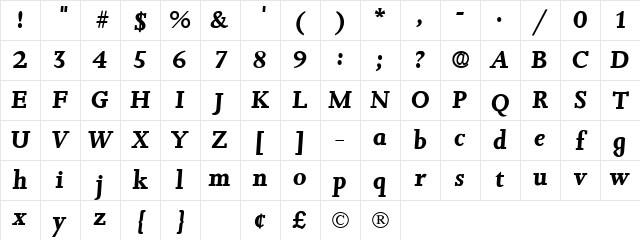
Juxta Display SSi Italic
Juxta Display SSi Family
Juxta Display SSi Italic
Complete Juxta Display SSi Italic glyph index. Displaying only characters natively supported by Juxta Display SSi Italic font.
Design Context for Juxta Display SSi
Juxta Display SSi is built around its visual character rather than neutral utility - its distinctive forms are designed to make an impression at display sizes. The slanted form adds forward momentum and visual energy.
Font Pairing: Pair with a clean neutral sans-serif for body copy to let Juxta Display SSi's character lead without overwhelming the composition.
Pro Tip: Use Juxta Display SSi exclusively at display sizes - it was designed to be seen, not read at length. Let a neutral companion handle body copy.